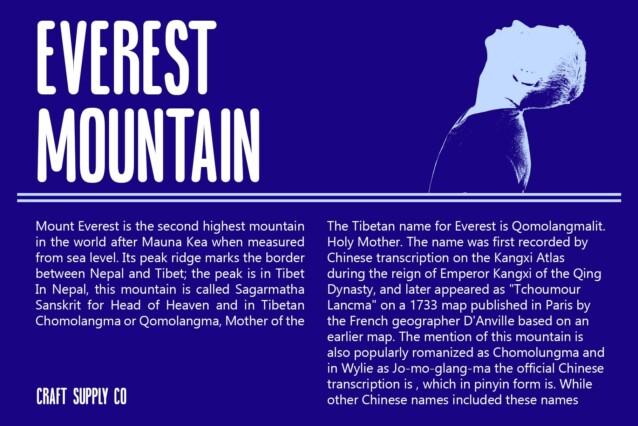
Blonden Rounded Font
Blonden Rounded Font: A Soft Touch in Sans Serif. Subtle Contrast and Rounded Ends Blonden Rounded offers a gentle sans serif experience with its low contrast and softly rounded stem ends.
Tall and Elegant Silhouette With its towering stature, This font commands attention while maintaining an elegant presence.